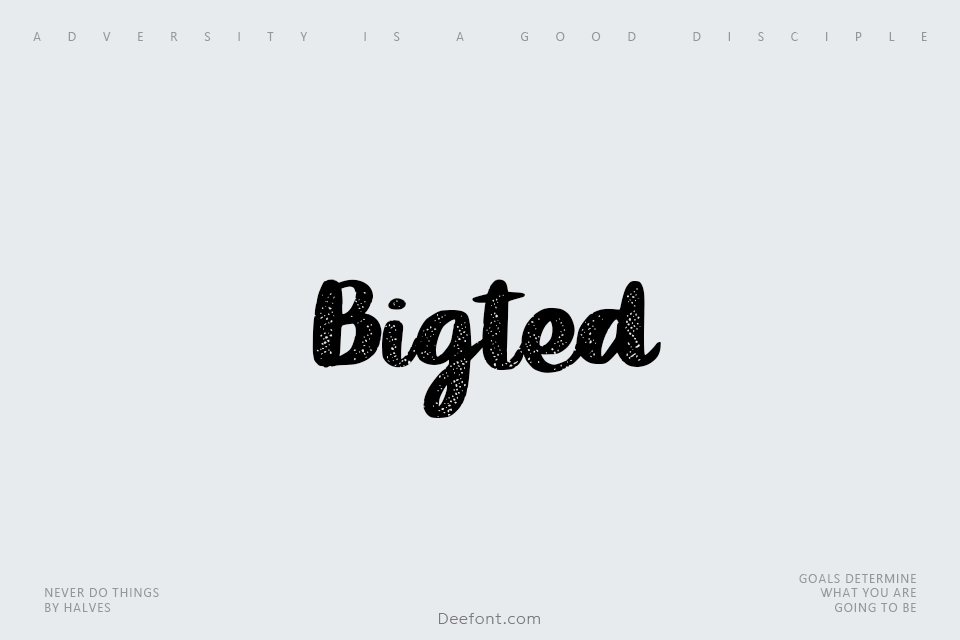
Bigted Font
Bigted is a contemporary script font created by Vunira Design, featuring bold and confident strokes with elegant curves and sharp angles. This versatile typeface blends urban chic with creative flair, making it perfect for posters, logos, social media graphics, and website headers. The font combines sophistication with playfulness, offering clean and legible design that works equally well for both designers and non-designers. With its fresh, modern aesthetic and dynamic energy, Bigted delivers a unique touch of creativity to any design project, from branding to typography applications.